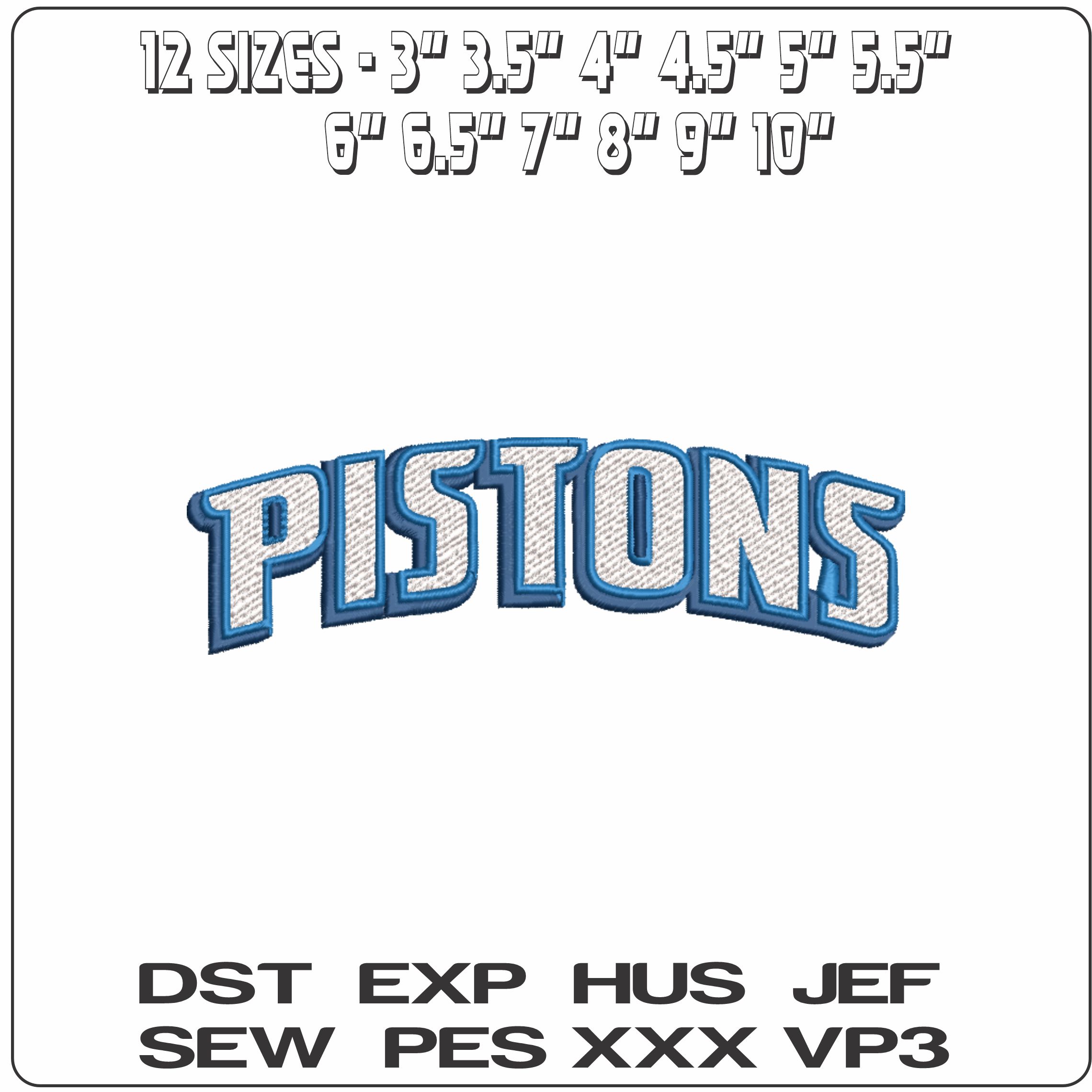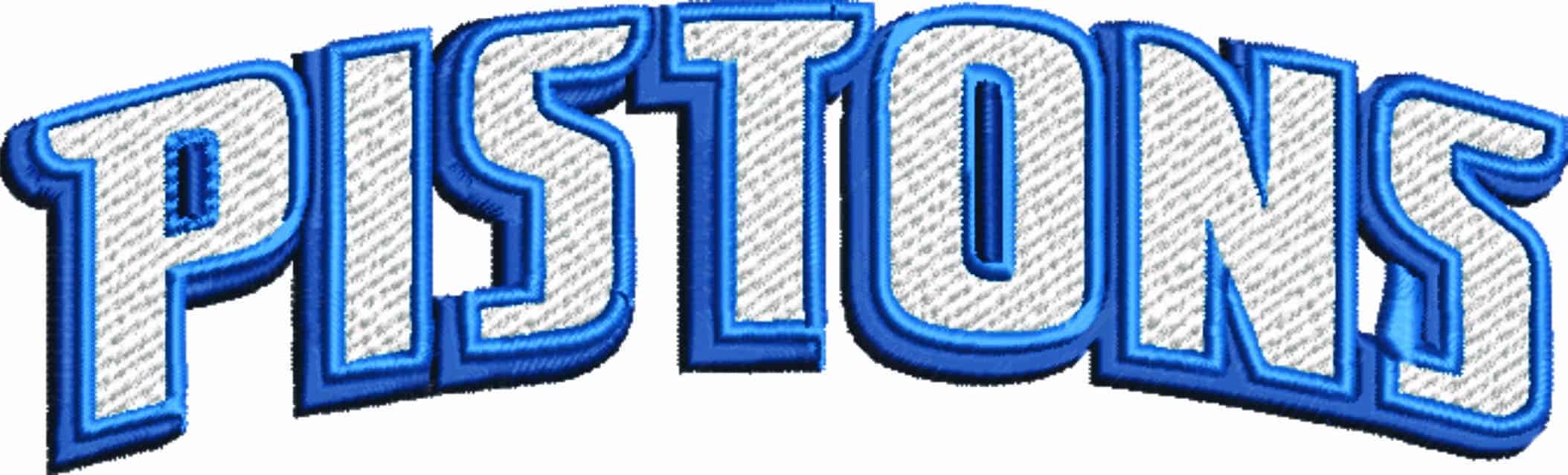
Bold arched PISTONS lettering in layered blues gives jackets, hoodies and fan gear a clean arena-style finish.
Bring courtside style to your stitching with this Detroit Pistons wordmark design, built around the bold arched “PISTONS” lettering fans will recognise straight away. The white letters, outlined in light and dark blue with a drop-shadow effect, give it that crisp, layered sports look without overcomplicating the palette. It suits basketball supporters who want a clean team statement rather than a busy full-logo layout.
With 3 thread colours and a dense, heavily stitched build, it has the visual weight to stand up well on sweatshirt fleece, hoodie fronts, varsity-style jackets and sturdy cotton totes. The broad arched shape also works nicely across the back yoke of a shirt or centred on a sleeve panel, where the outlined text stays readable at a glance. If you want a Detroit Pistons design that feels neat, solid and unapologetically sporty, this one does the job.